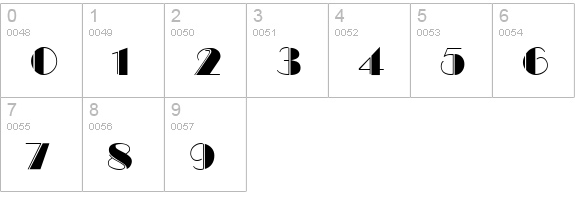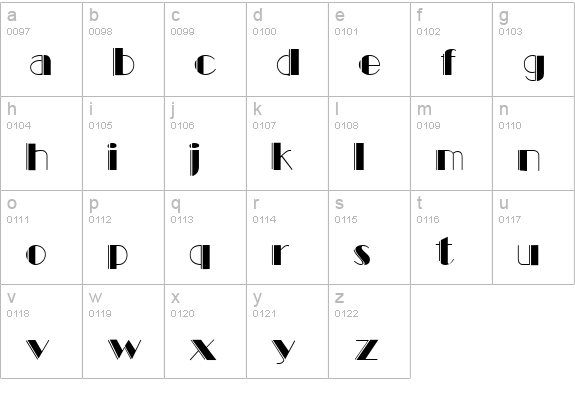
Marquee Engraved Font Details
Introducing Marquee Engraved font, a striking and captivating typeface that will add a touch of elegance and sophistication to any design project. With its beautifully crafted letterforms, this font exudes a sense of timeless charm and refinement. The Marquee Engraved font features intricate detailing and precise engraving, creating a stunning visual impact that is sure to leave a lasting impression. Each letter is meticulously designed to showcase the perfect balance between classic appeal and modern aesthetics. This versatile font is ideal for a wide range of applications, from wedding invitations and event posters to branding materials and editorial designs. It effortlessly captures attention and adds a touch of luxury to any project. And the best part? Marquee Engraved font is available for free download at FontsMarket.com. Yes, you read that right - this exquisite font can be yours without any cost. Simply visit FontsMarket.com, search for Marquee Engraved font, and enjoy the freedom to use this exceptional typeface in your creative endeavors. Whether you're a professional designer or a passionate hobbyist, Marquee Engraved font is a must-have in your font collection. Its versatility, elegance, and the fact that it is freely available make it a valuable asset for any design project. So don't miss out on the opportunity to elevate your designs and download Marquee Engraved font today.